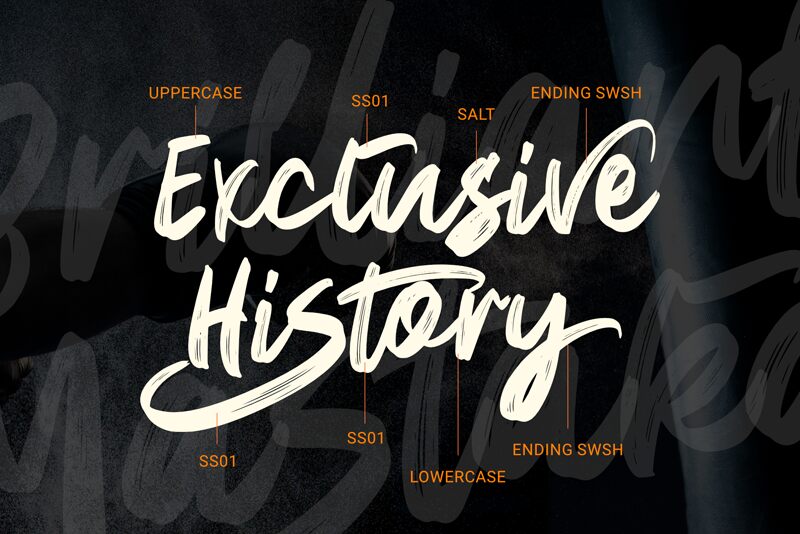
Brilliant Mastaka
Brilliant Mastaka, designed by Dumadistyle, is a stunning brush font that beautifully combines traditional Chinese brush writing with a modern touch. With its upper and lower case letters, numbers, ligatures, multilingual support, and basic punctuation, this font offers versatility for your design projects. Whether you're working on logo designs that need a bold and artistic touch or creating eye-catching posters that demand attention, Brilliant Mastaka is the perfect choice.